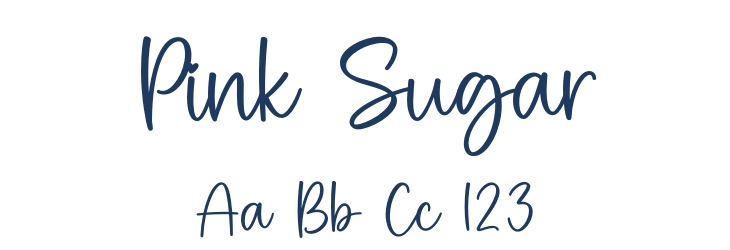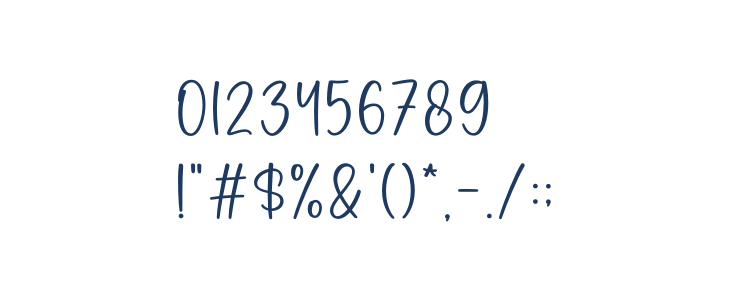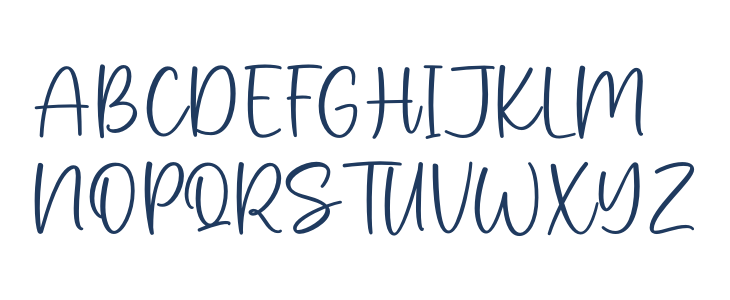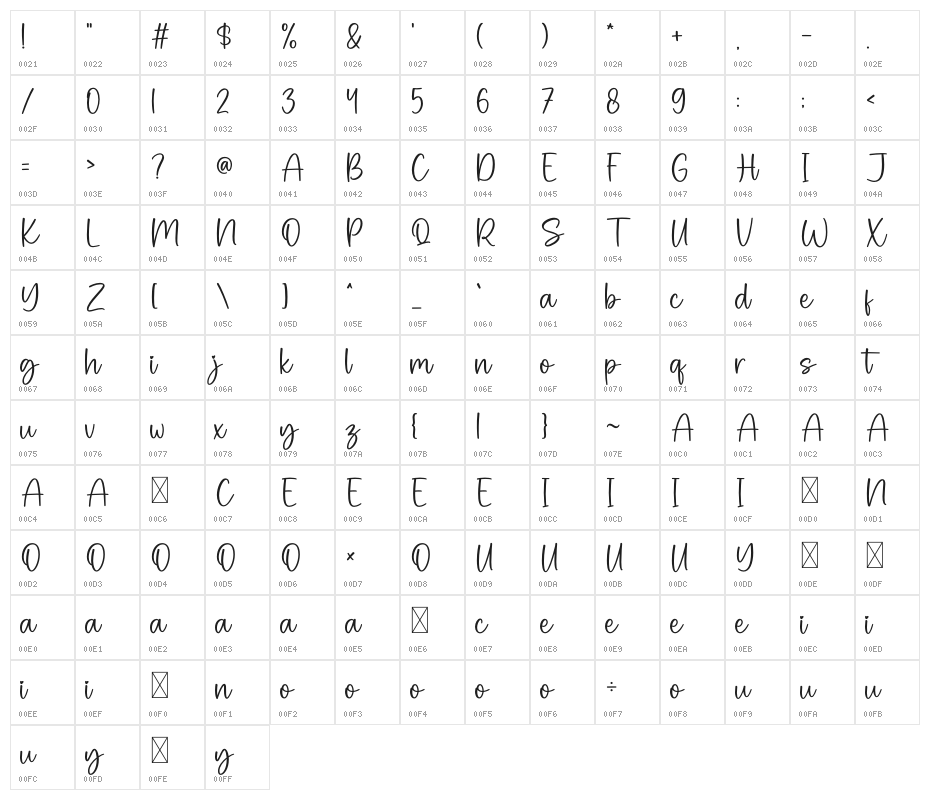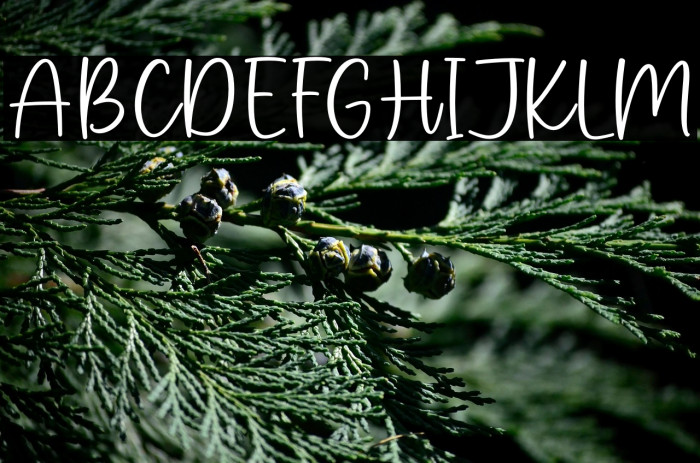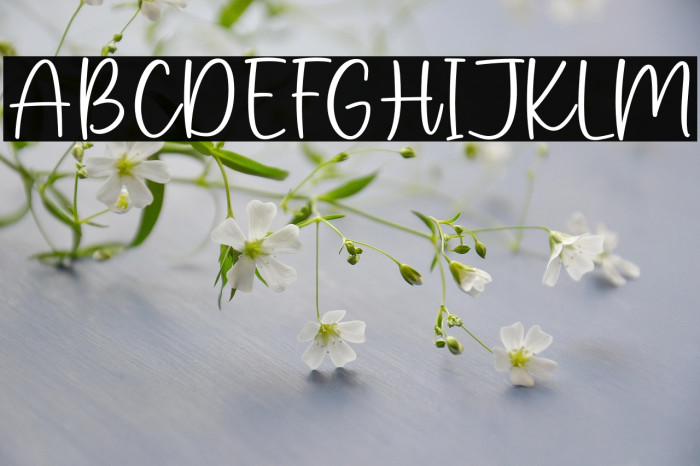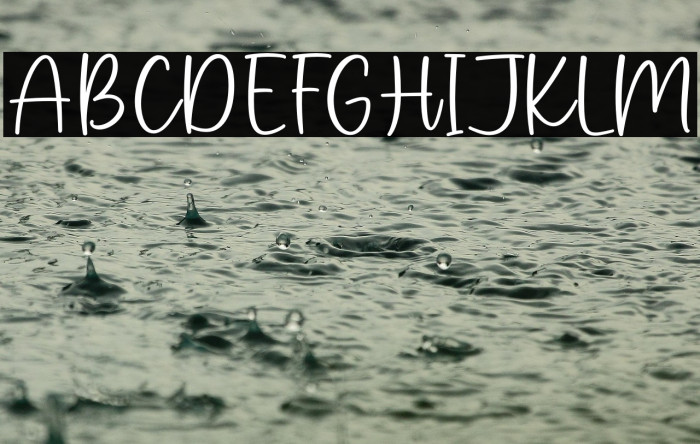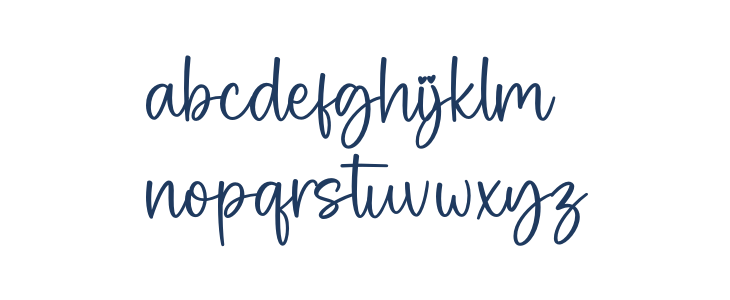
Pink Sugar Font
Pink Sugar Description
A playful, handwritten script font with rounded, flowing letterforms and consistent stroke width. The characters have a casual, friendly appearance with tall ascenders and descenders, and a slight slant that adds to the informal style.
| Overall Style | Playful, Casual, Modern |
| Use Case | Logos, Headlines, Invitations, Social Media |
| Proposed Projects | Greeting cards, invitations, social media graphics, branding for playful or feminine products, quotes, and posters. |